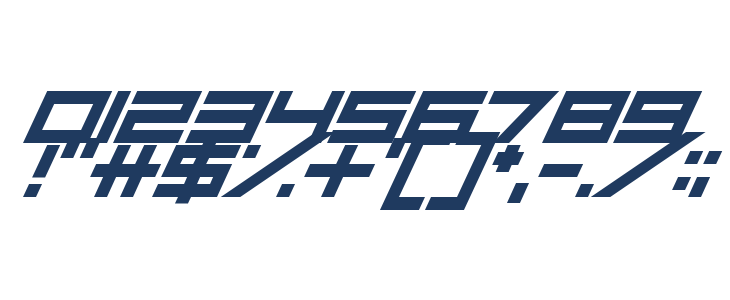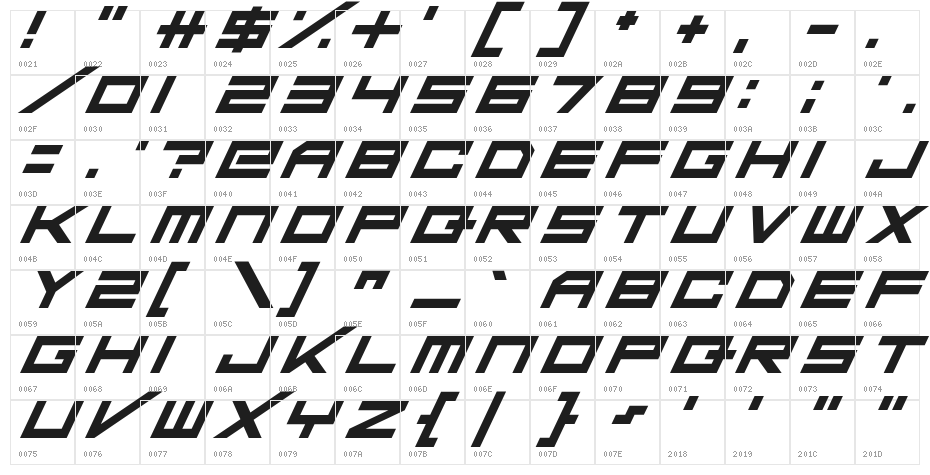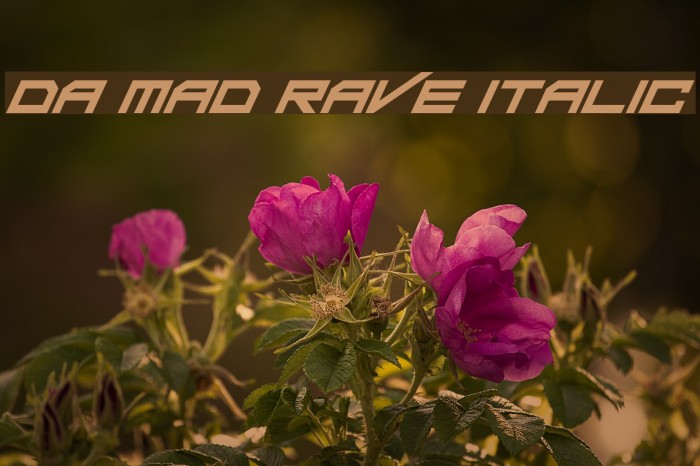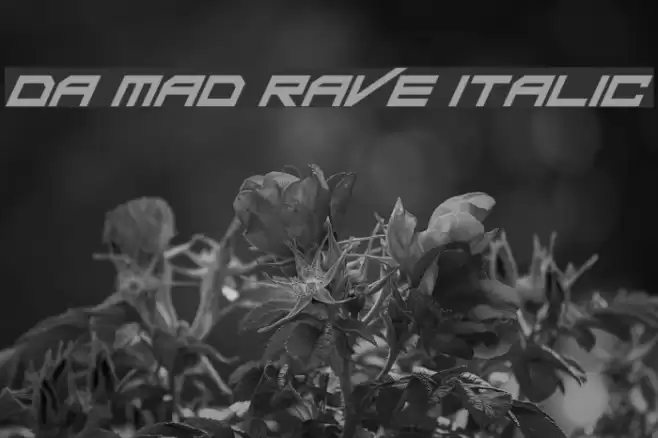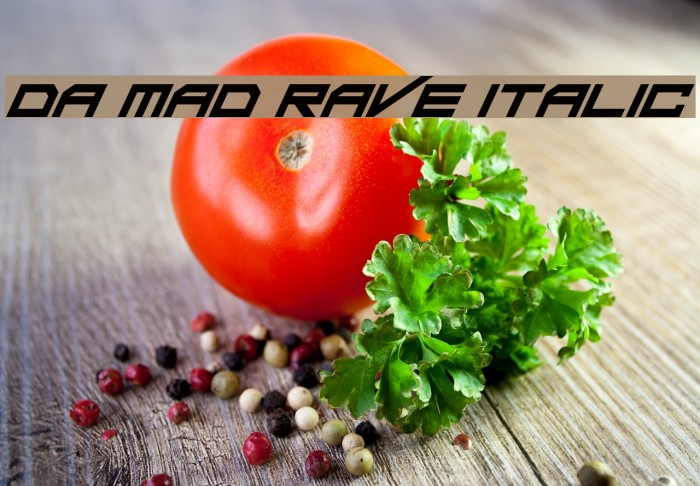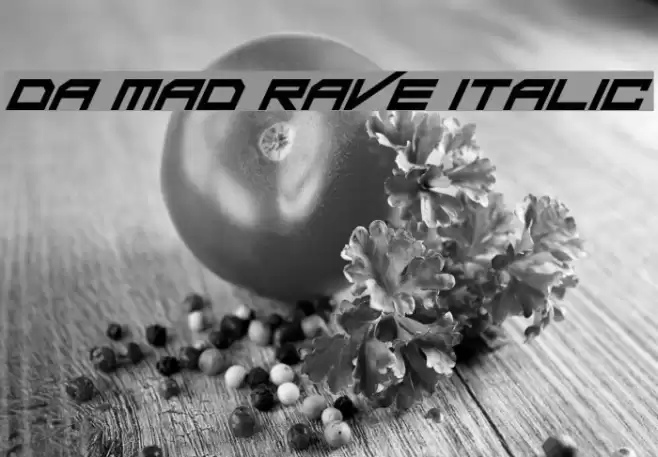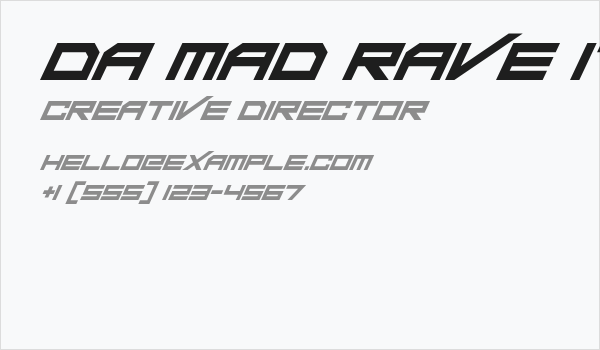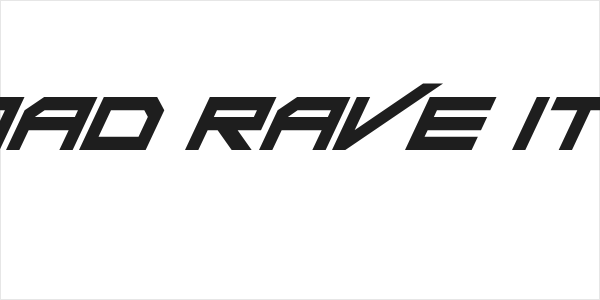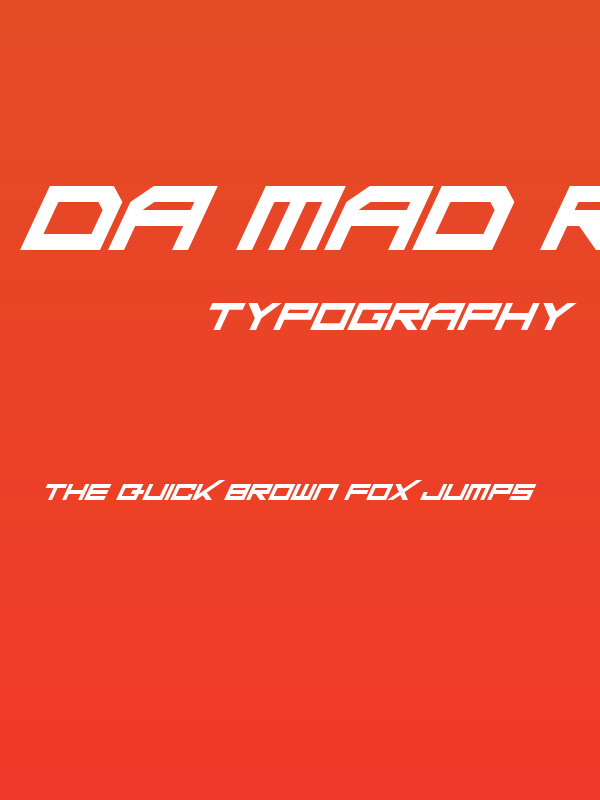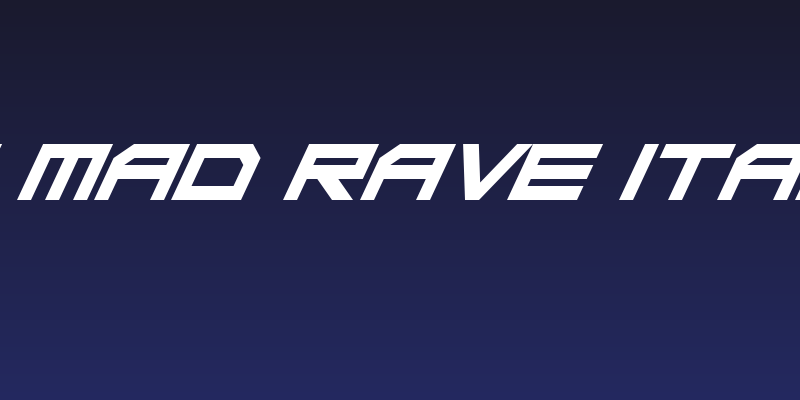
Da Mad Rave Italic Font
Da Mad Rave Italic Description
This font features a bold, italicized style with a futuristic and dynamic appearance. The characters are angular and slanted, giving a sense of motion and speed. The uppercase and lowercase letters maintain a consistent geometric form, with sharp edges and a slightly condensed width. The numbers and special characters follow the same design principles, ensuring uniformity across all glyphs. The font's design is suitable for projects that require a modern and edgy look, such as technology-related branding or sports team logos.
| Proposed Projects | Ideal for technology branding, sports team logos, and dynamic poster designs. |